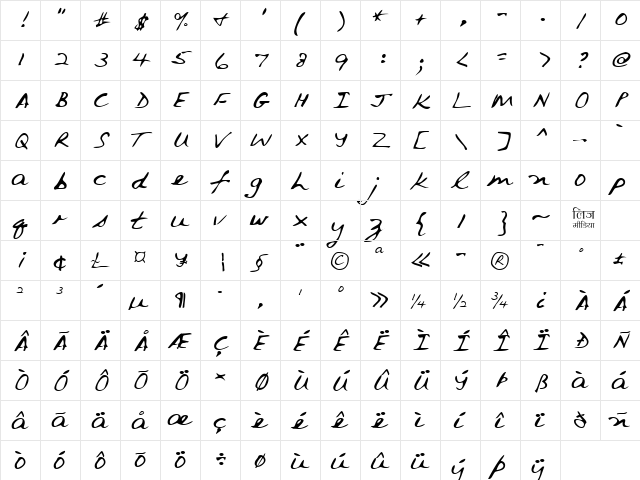
LEHN079 Regular
Design Context for LEHN079 Typeface
LEHN079 takes a measured approach to typography — its balanced proportions and neutral character make it a reliable workhorse for both digital and print work.